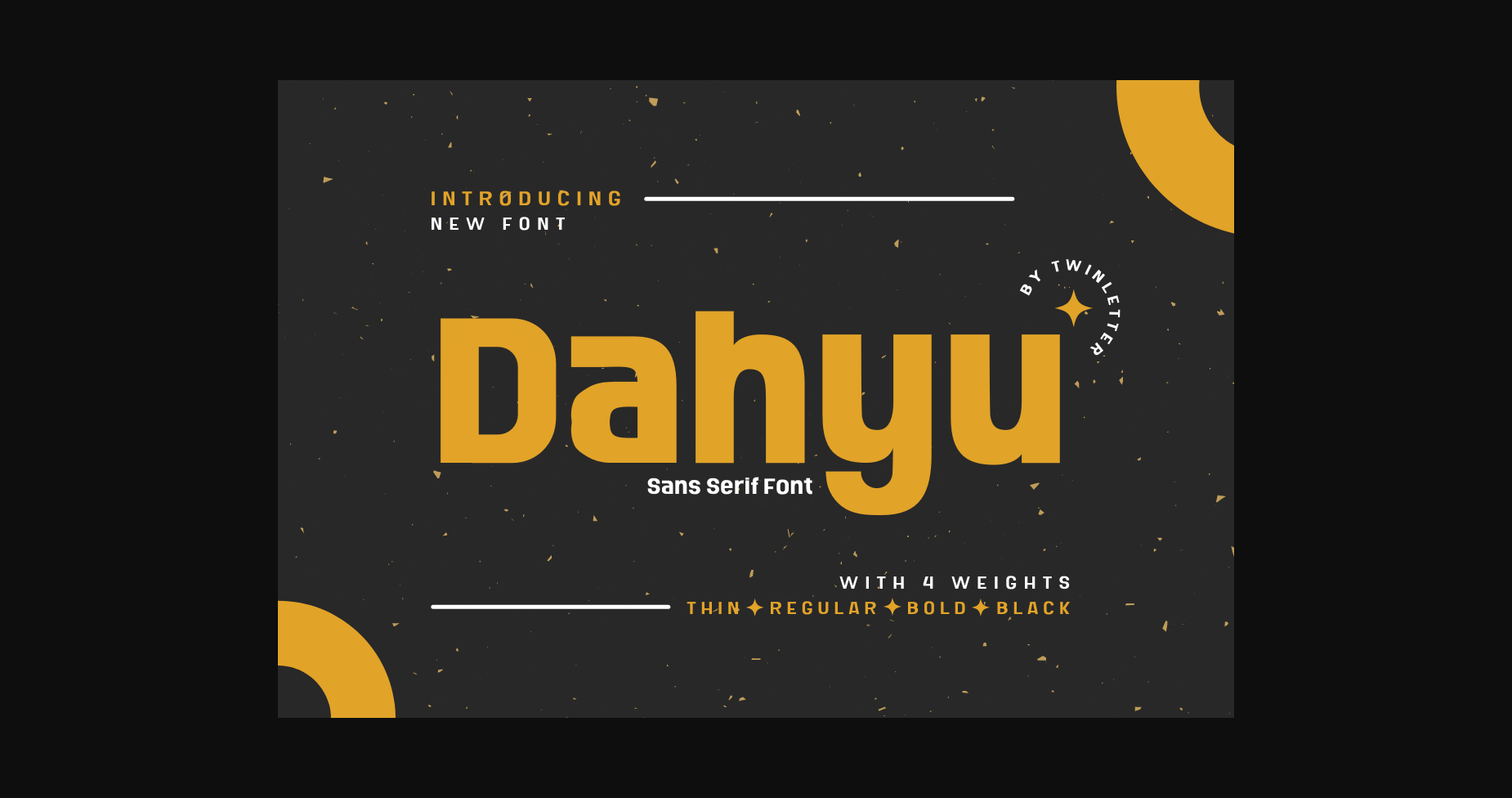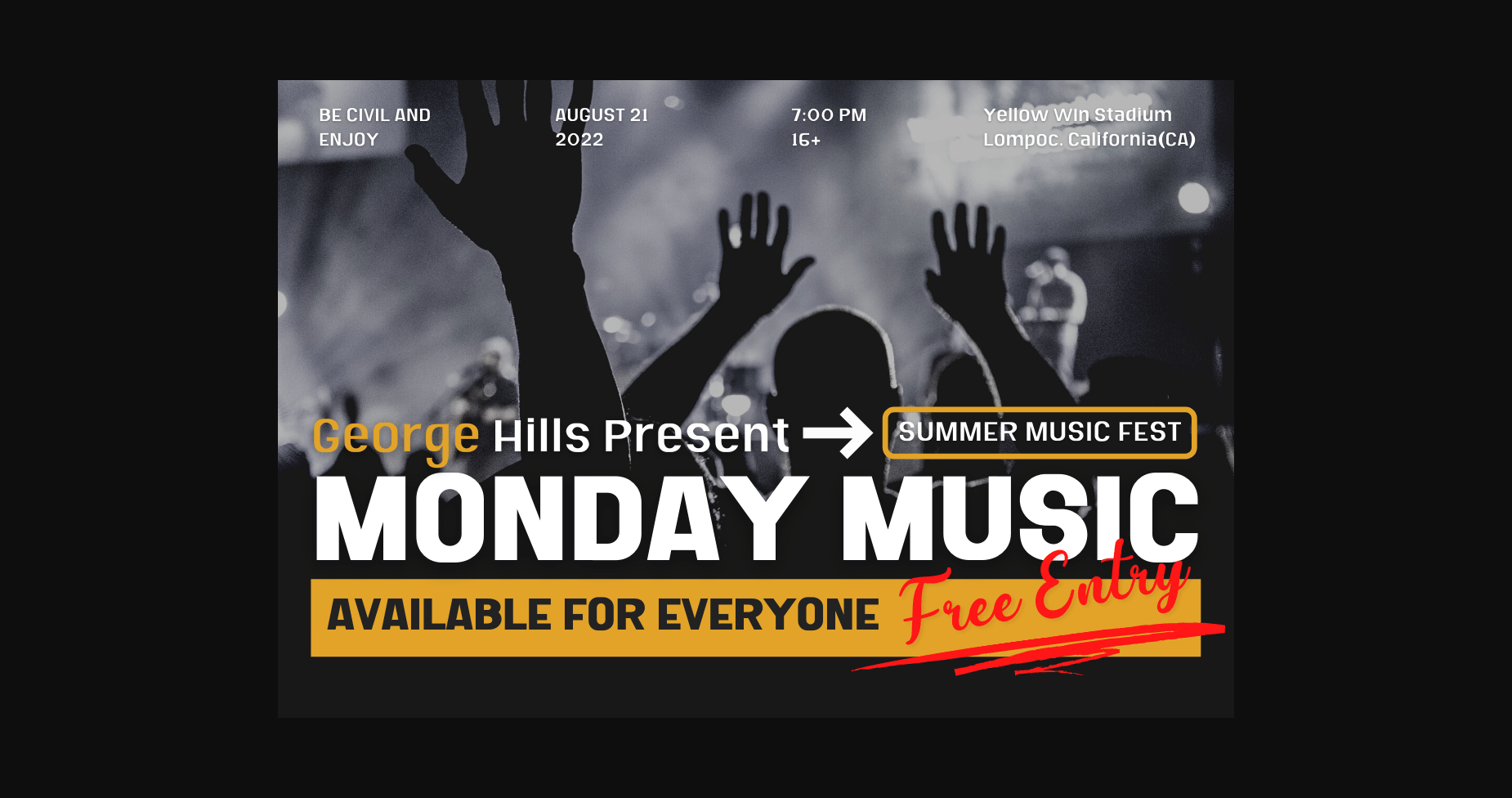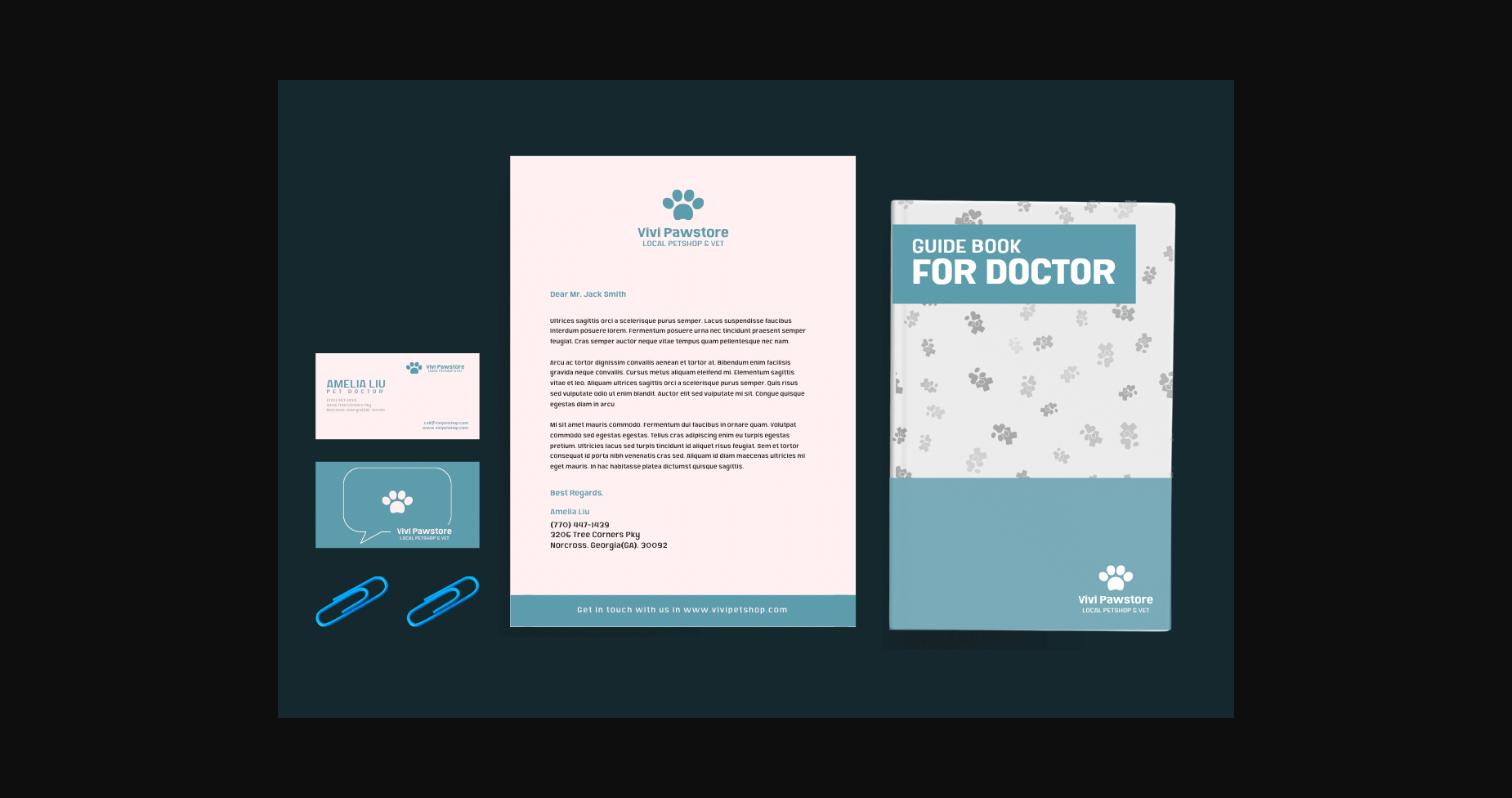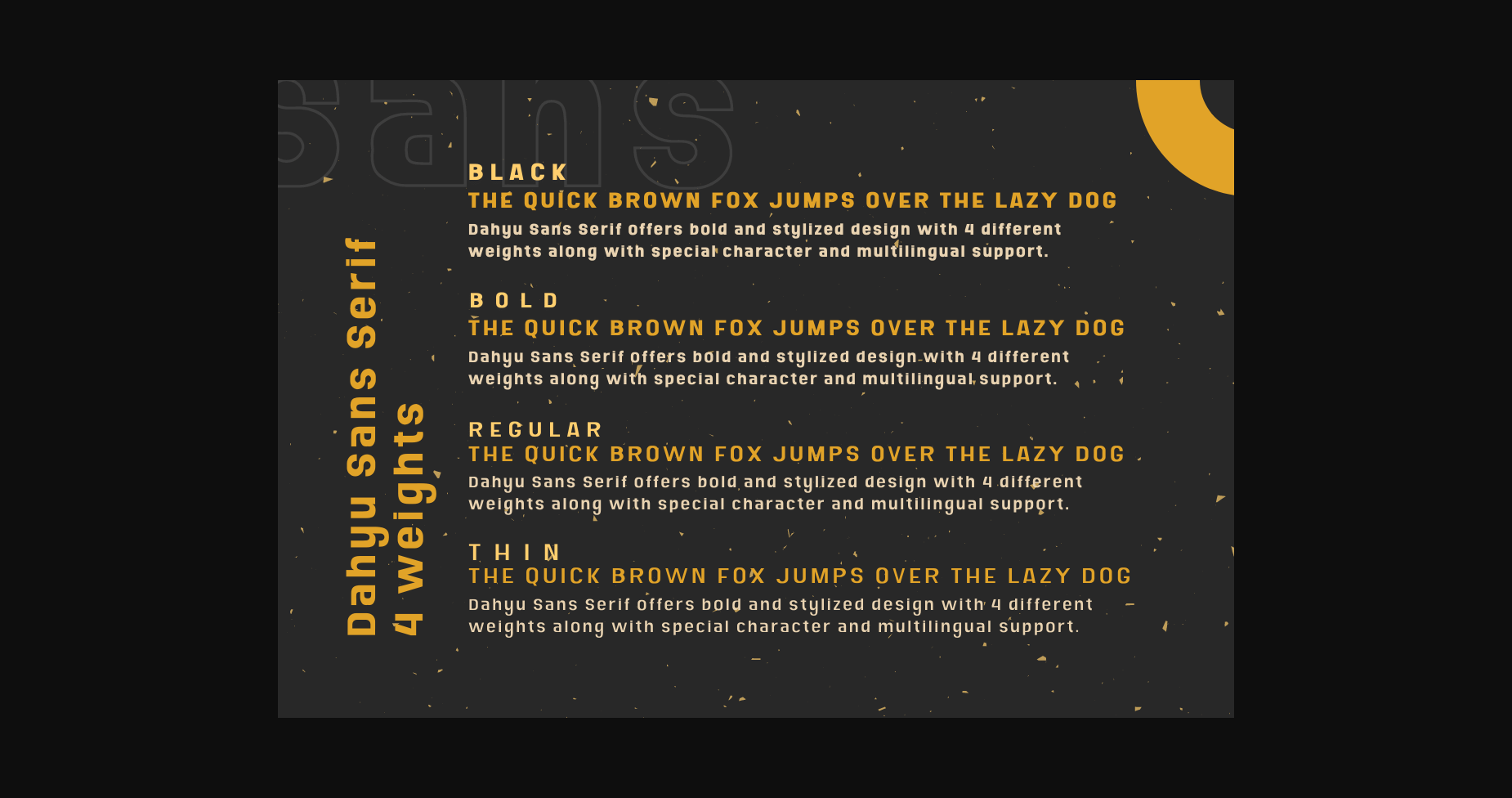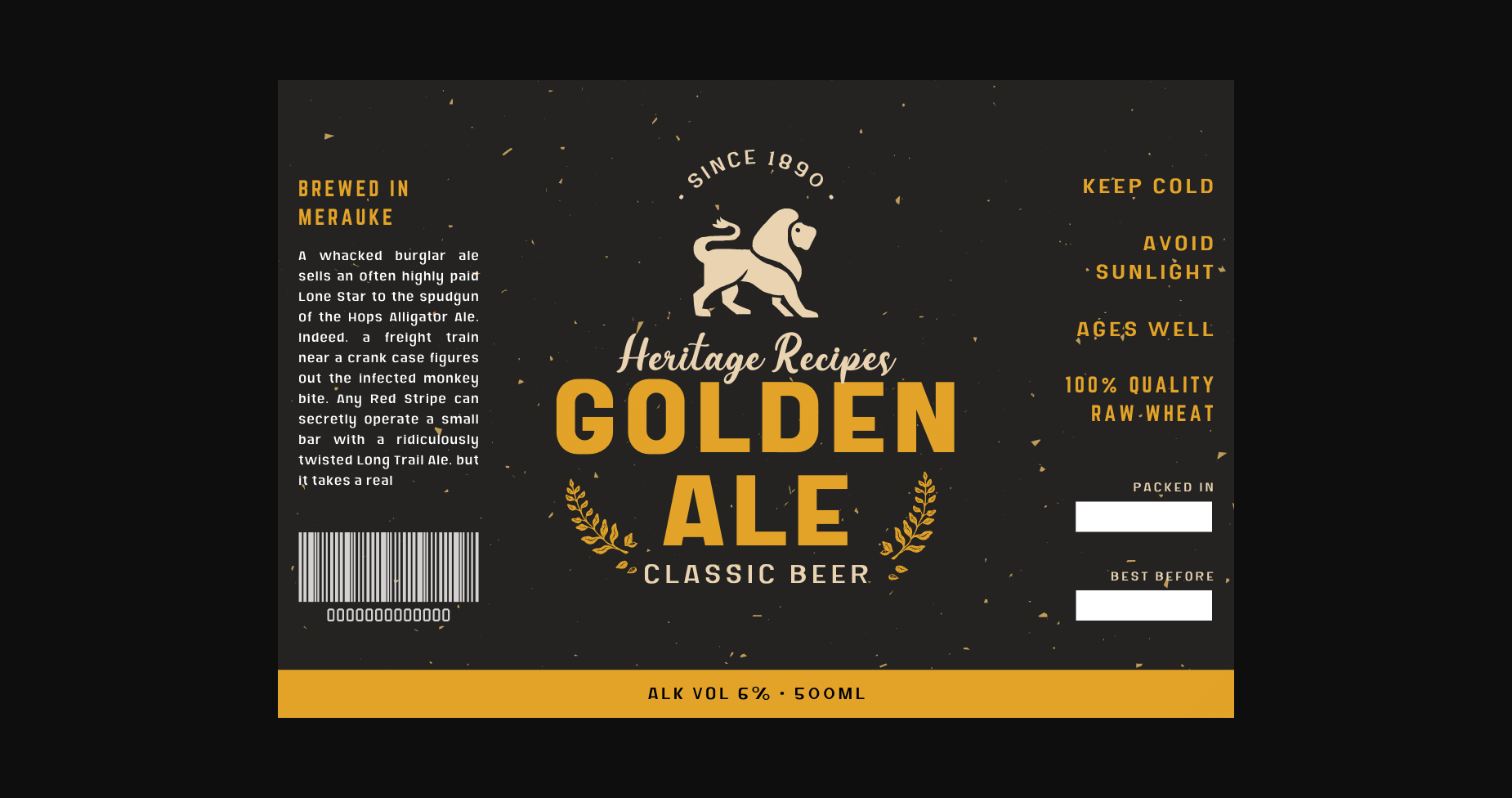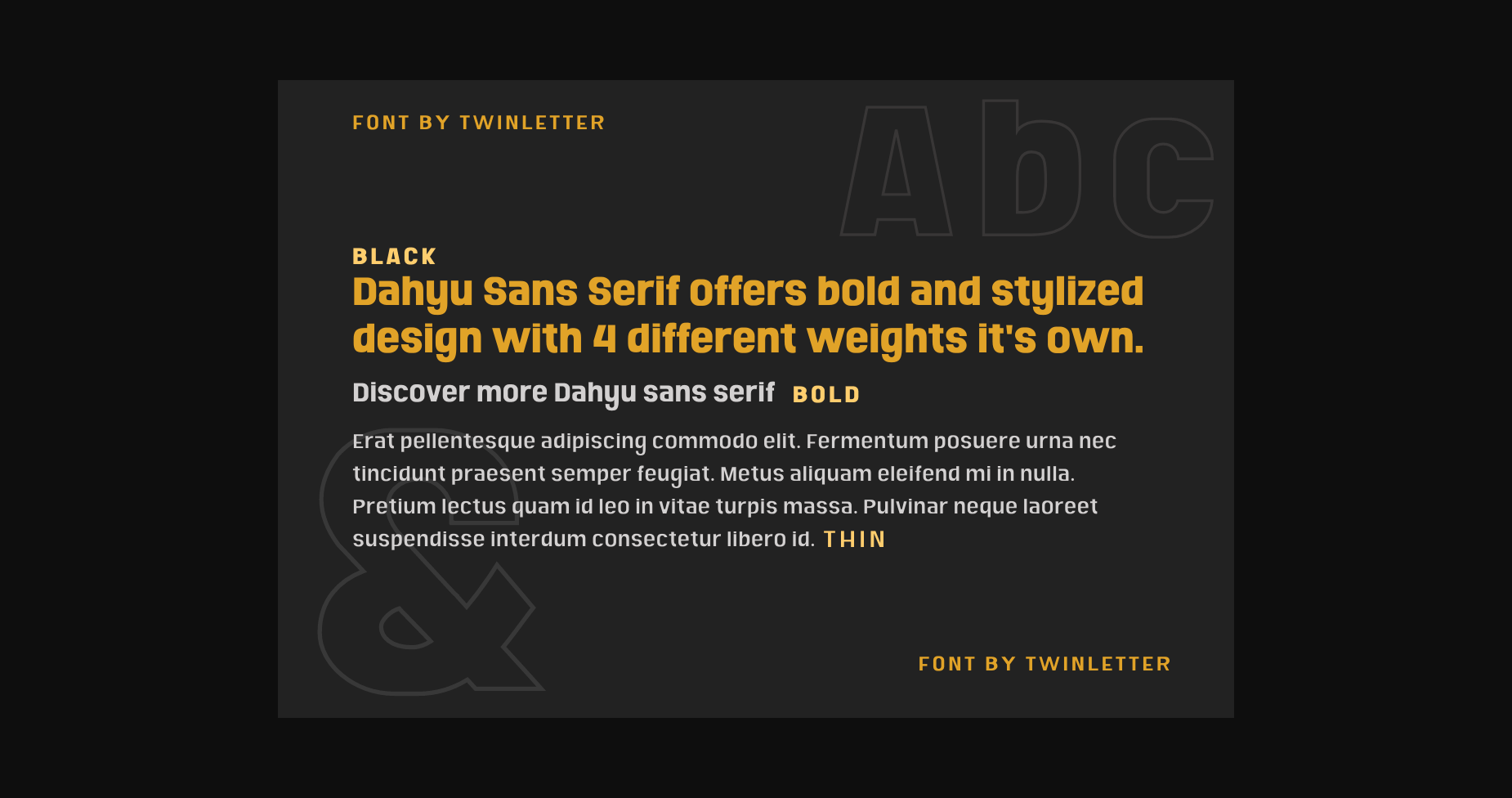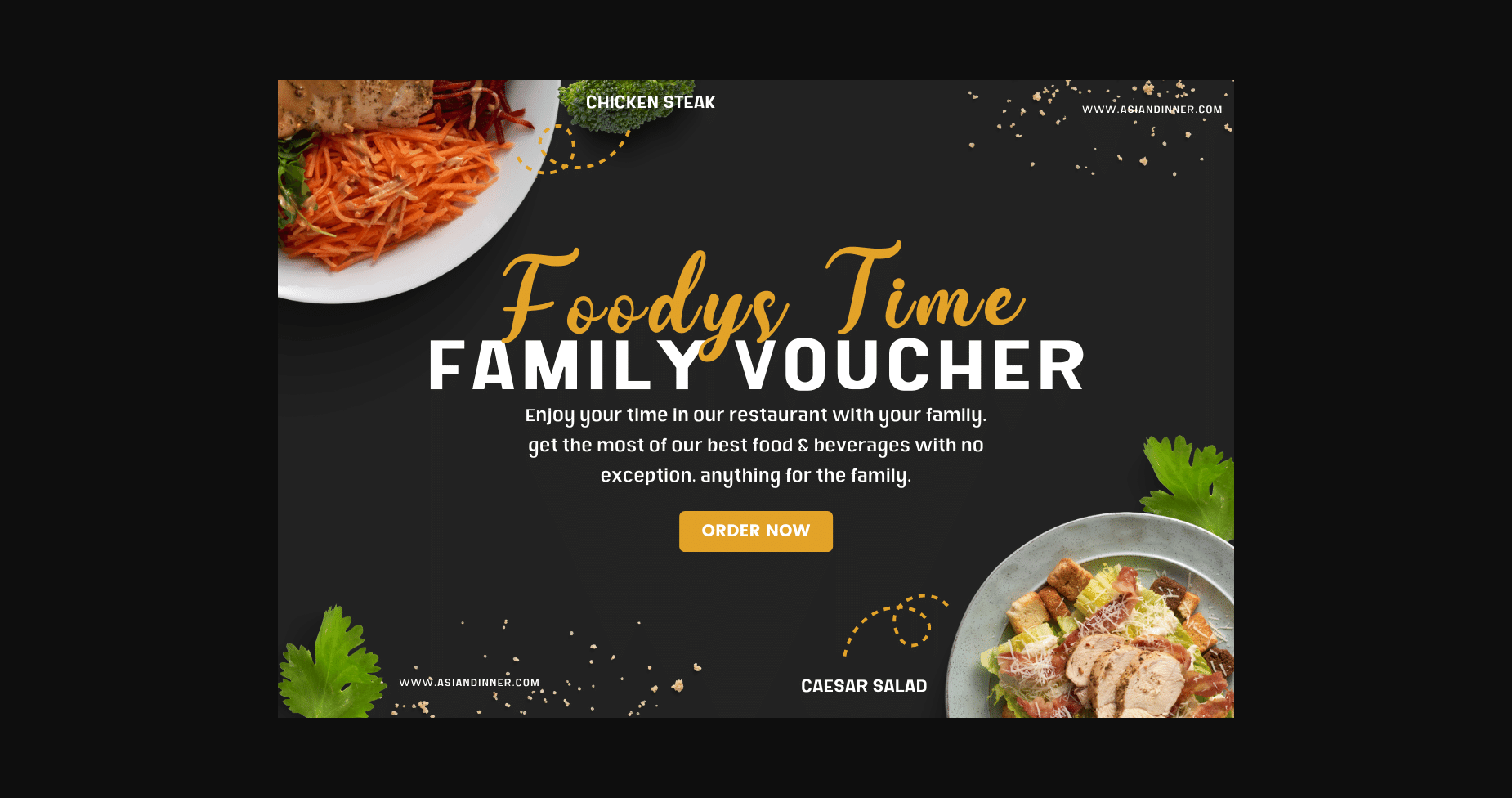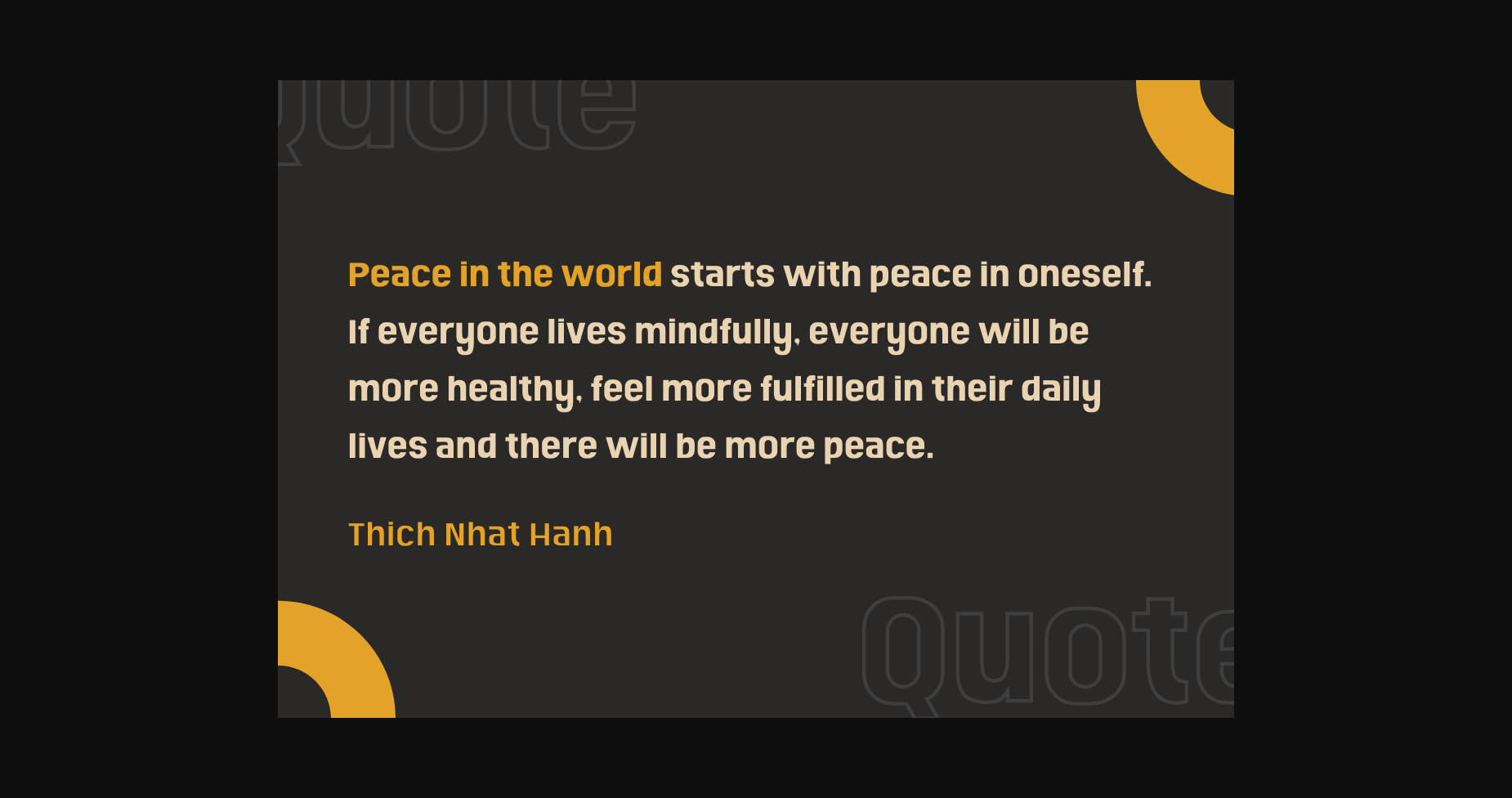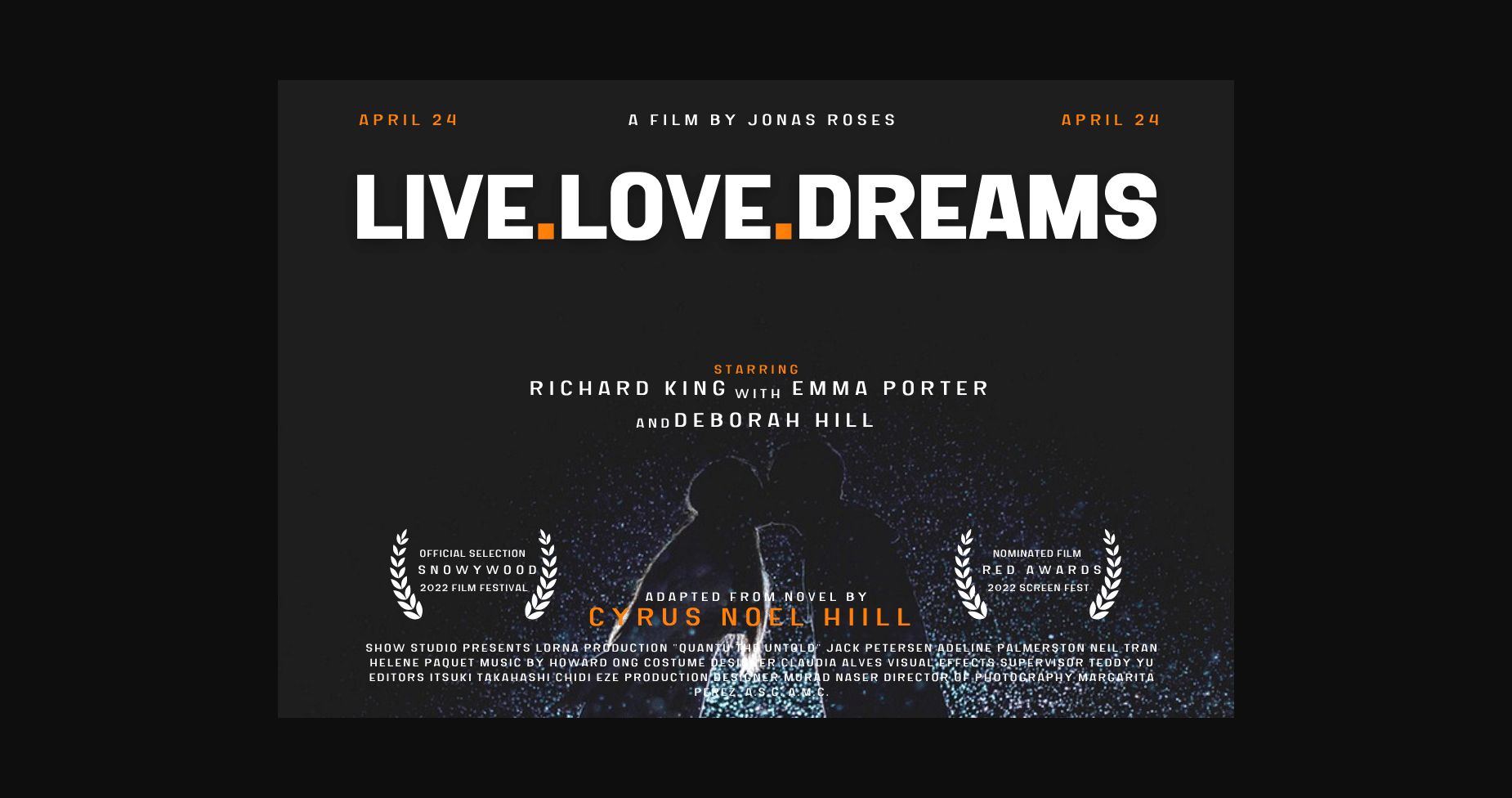
HomeSans Serif FontsDahyu Font Sans Serif Fonts Dahyu Font FacebookTwitterPinterestWhatsApp 1 of 11 ... Dahyu Font Poster 2... Dahyu Font Poster 3... Dahyu Font Poster 4... Dahyu Font Poster 5... Dahyu Font Poster 6... Dahyu Font Poster 7... Dahyu Font Poster 8... Dahyu Font Poster 9... Dahyu Font Poster 10... Dahyu Font Poster 11... About Dahyu Font Dahyu is a bold and cool sans serif font. It is perfect for any branding project such as logos, t-shirt printing, creative products, and more. DOWNLOAD NOW 171 0 People also explored Nila Font Plant on Lawn Font Amasya Font Sour Candy Font Love Vintage Font Burnstown Dam Shifters Font Sutralah Font Ameda Font Clockwork Font Feelgoodnes Font Orkeque Font TagsDahyuDahyu Font Previous articleMulane FontNext articleRosehot Font LEAVE A REPLY Cancel reply Comment: Please enter your comment! Name:* Please enter your name here Email:* You have entered an incorrect email address! Please enter your email address here Website: Save my name, email, and website in this browser for the next time I comment. Unlock Endless Creativity with the FREE September Clipart Huge Bundle (Valued at $700!) Personal Use Free Puisi Adinda Personal Use Free Read more Numberpile Personal Use Free Read more Omellia Personal Use Free Read more Euphorigenic Personal Use Free Read more BLOG Top 7 Google Fonts Alternatives for Faster and Privacy-Friendly Web Design (2025) Top 7 Google Fonts Alternatives for Faster and Privacy-Friendly Web Design (2025) When it comes to web typography, Google Fonts has long been the go-to... The 10 Best Handwriting Fonts to Add Personality to Your Designs To increase your work productivity, choose the most readable fonts. Using Fonts in Digital Marketing: Tips to Strengthen Your Brand Identity